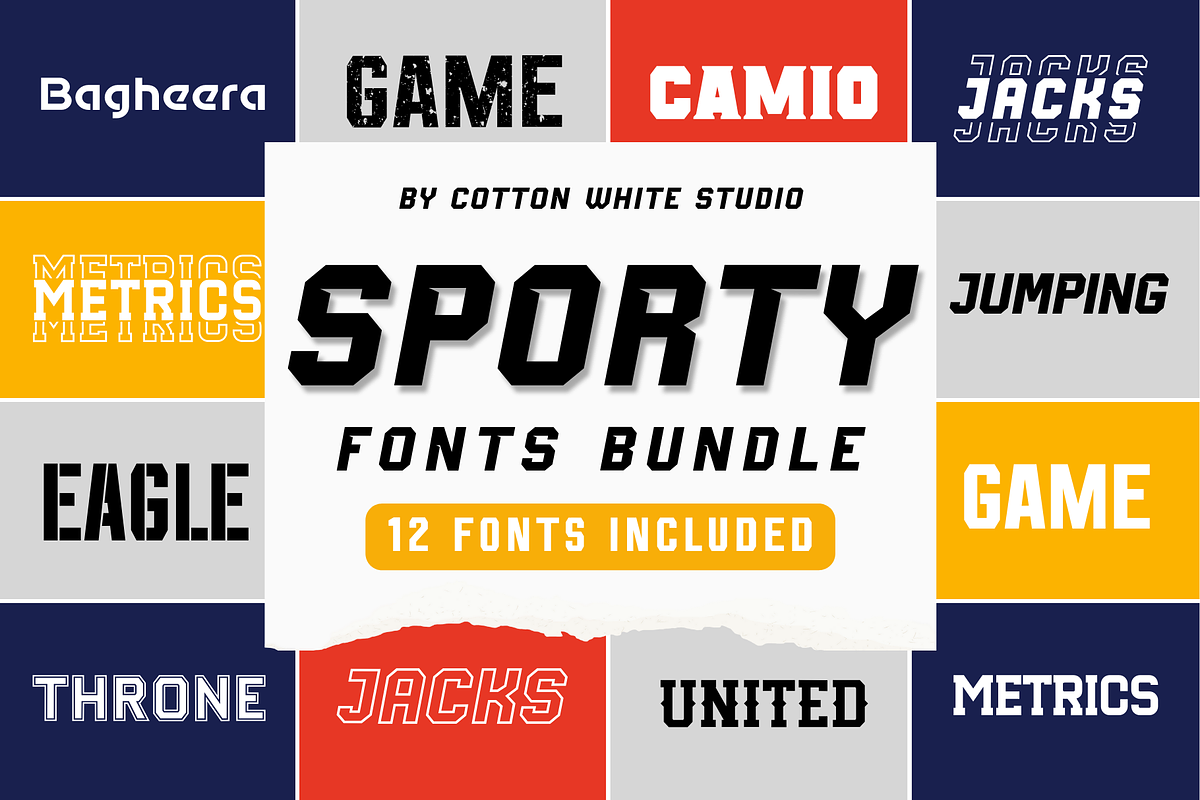
The Sporty Font Bundle Free Download is a dynamic and versatile collection of fonts designed to give your sports-related projects a strong and energetic look. Featuring a range of bold, athletic typefaces with unique characteristics, this bundle is perfect for sports branding, team logos, jerseys, event posters, merchandise, and more.
The bundle includes a mix of serif, sans-serif, and script fonts that work well for both display and body text, providing plenty of options to create exciting designs. Whether you're working on a sports team logo, promotional materials, or social media posts, The Sporty Font Bundle brings strength, motion, and energy to your typography.
The bundle includes uppercase and lowercase letters, numerals, punctuation, and multilingual support, ensuring it’s adaptable for various design applications across both print and digital media.